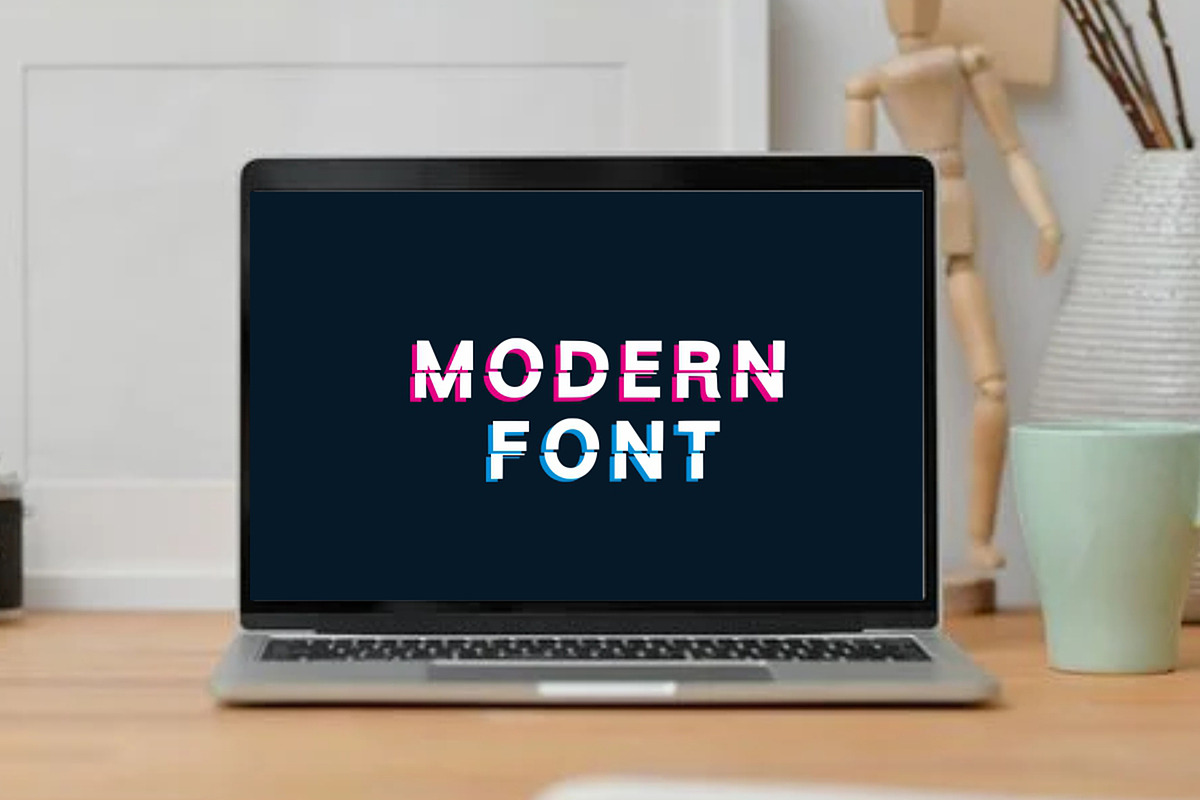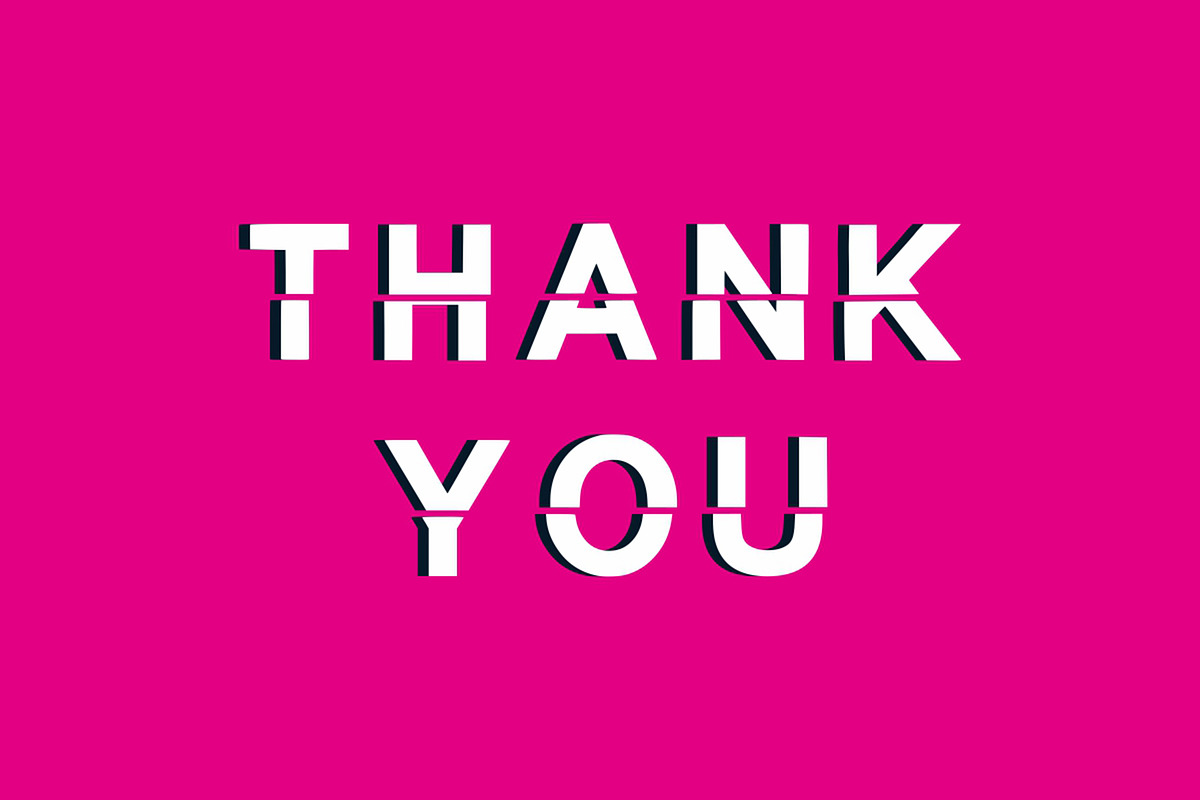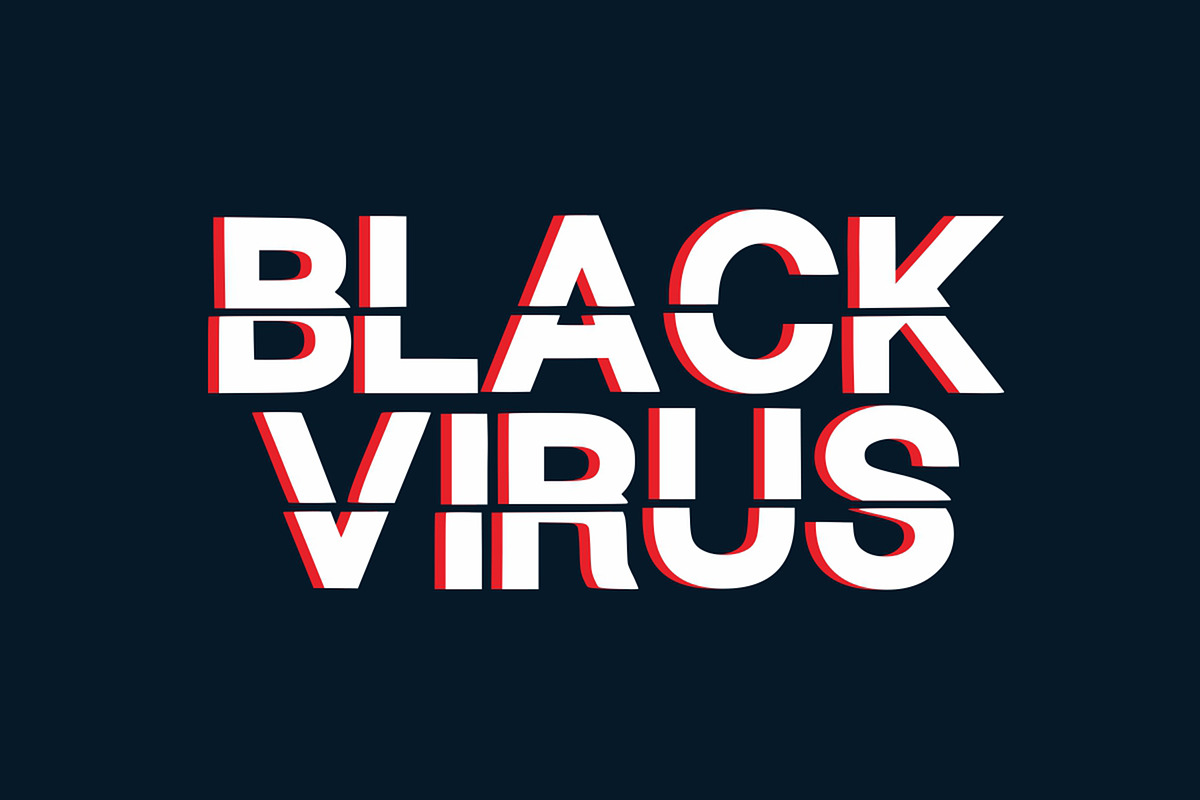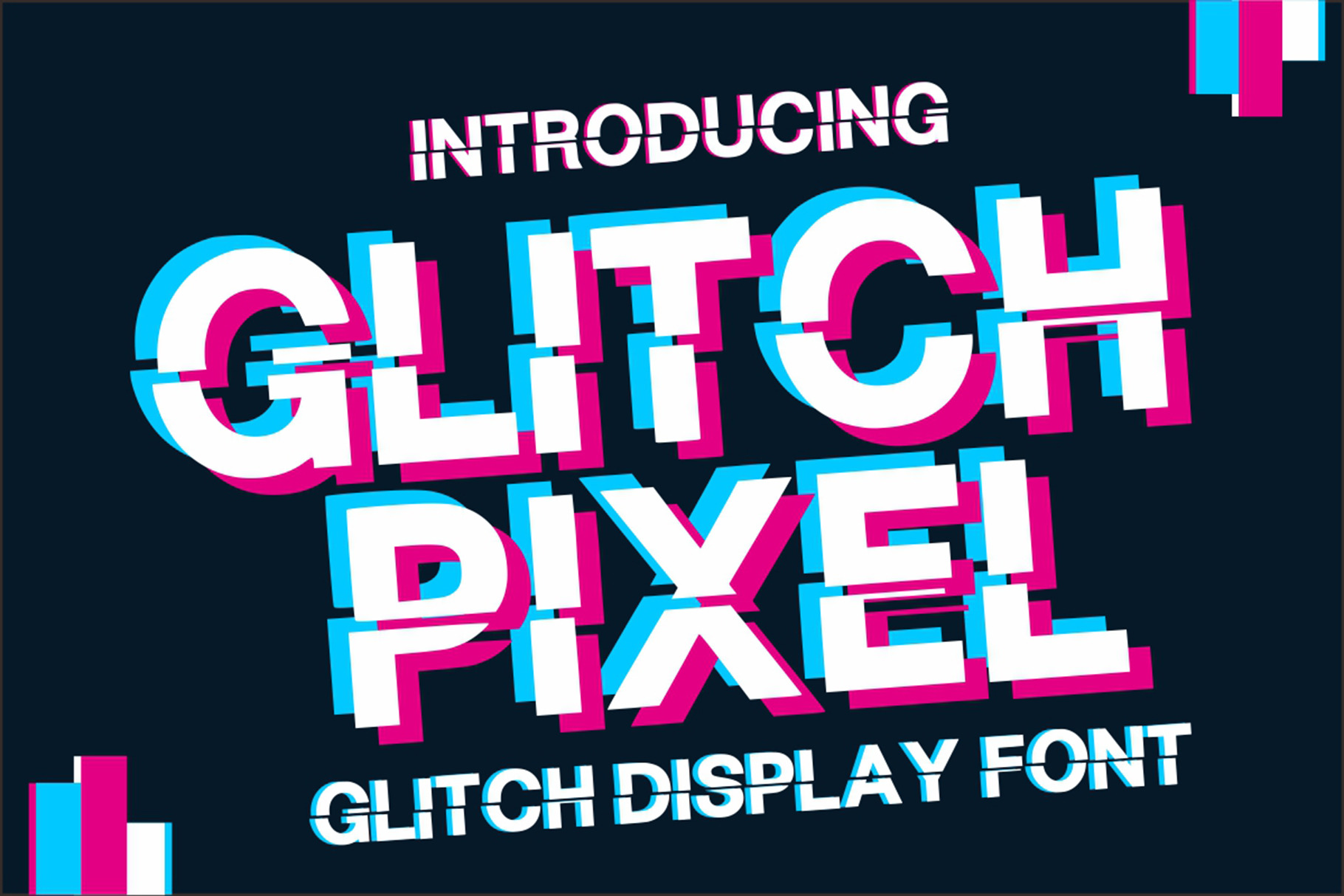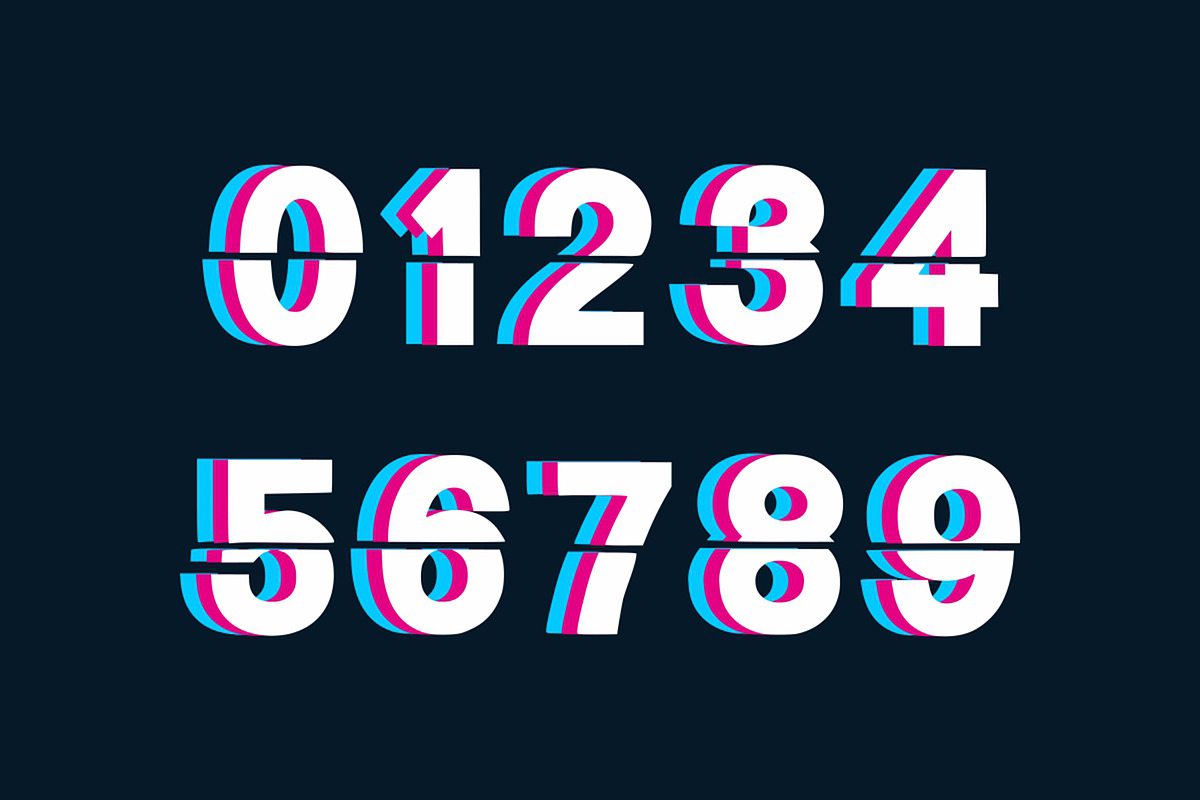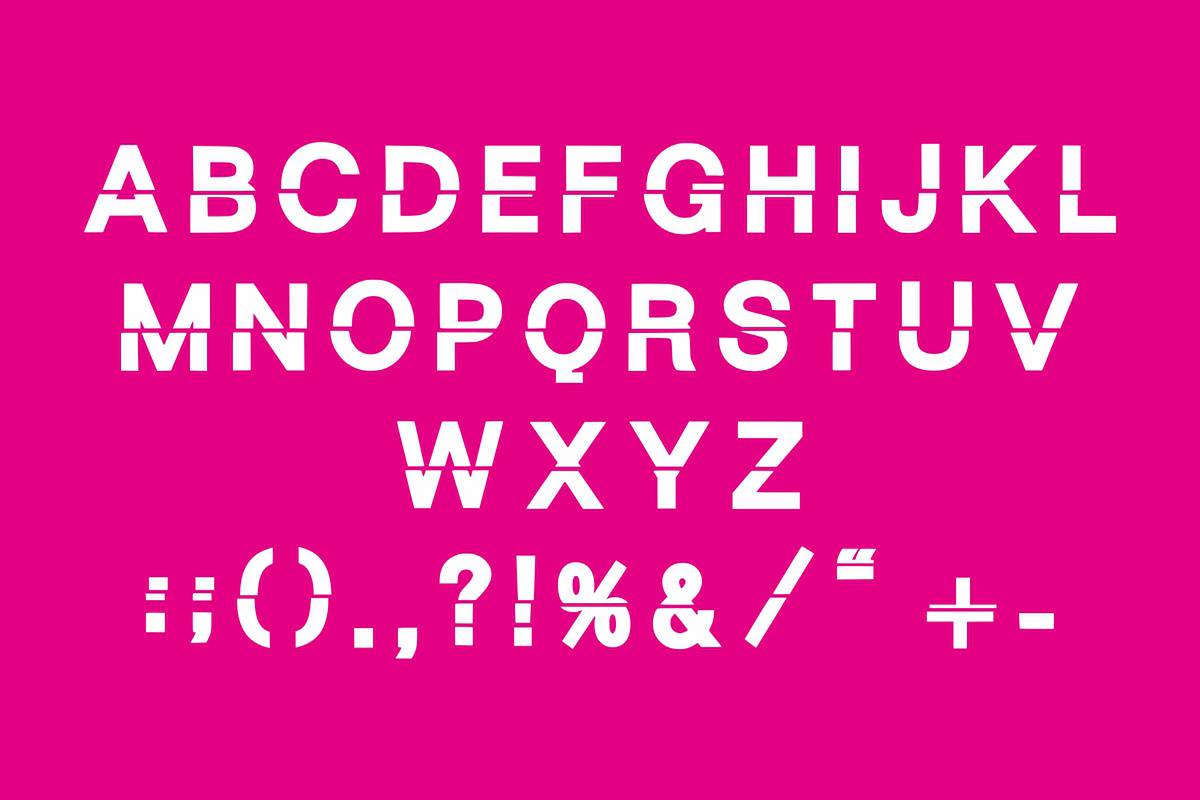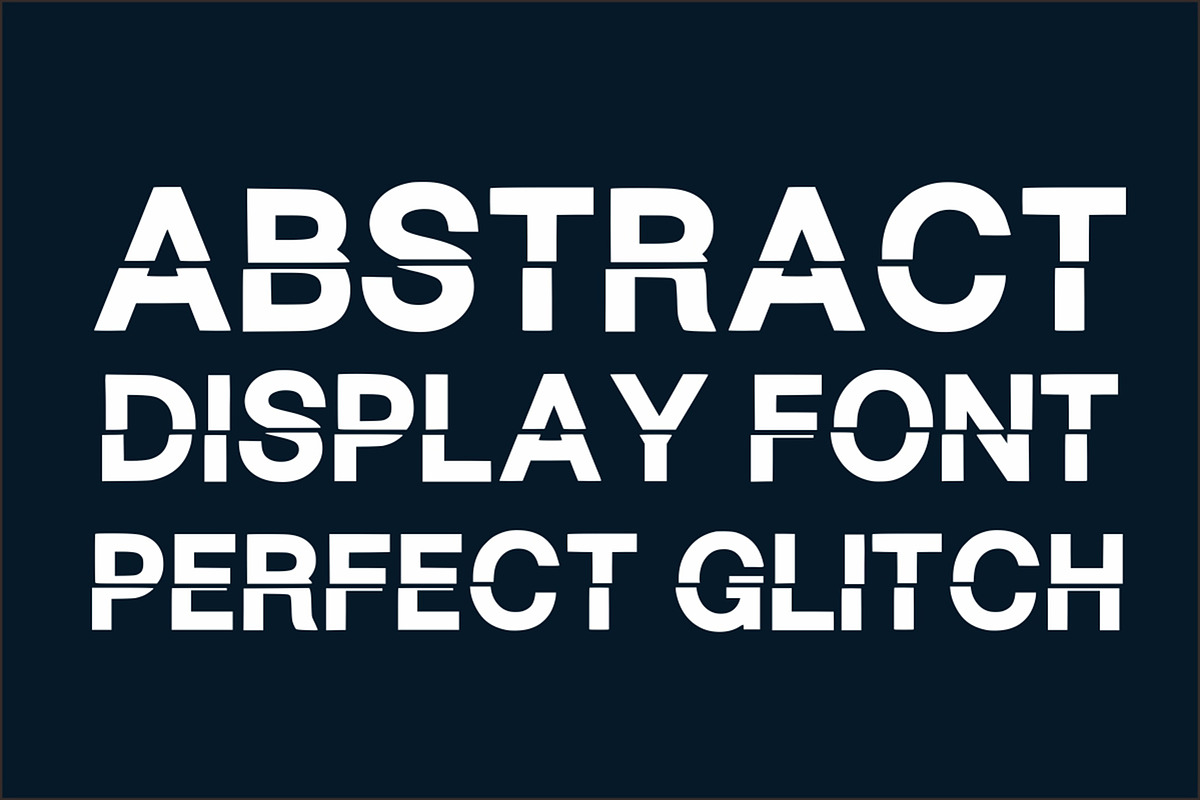
Glitch Pixel - Glitch Font
Glitch Pixel is a cool and bold looking display font. It features a dynamic effect and a unique charm. It is perfect for headlines, whether for sporting events, automotive posters, logos or monogrammed designs.